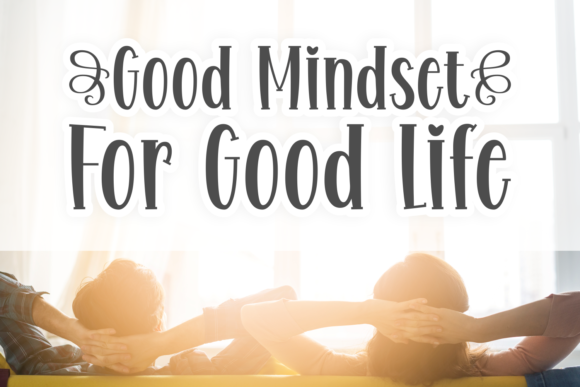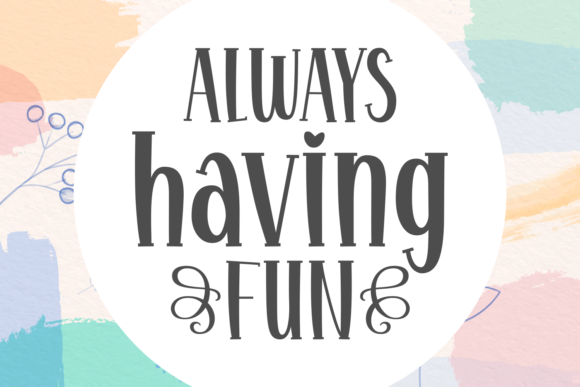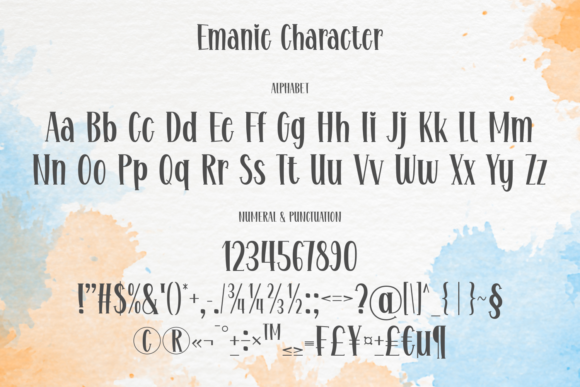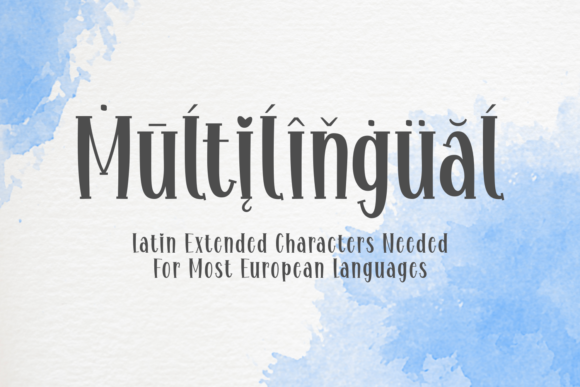
Freebie Wednesday: Free Emanie Font
Emanie is a chic display font, that emanates confidence and versatility. Its stylish alternates and ligatures make this font the perfect match for any project. Available for free on the Creative Fabrica site.